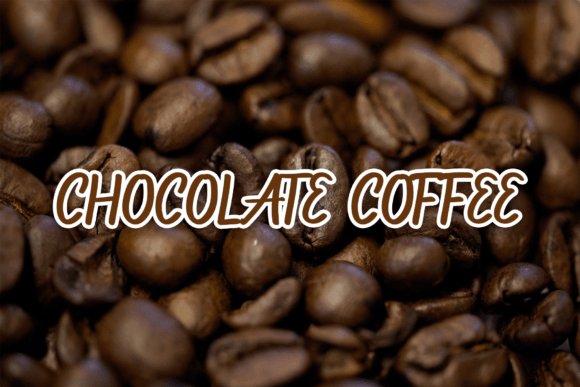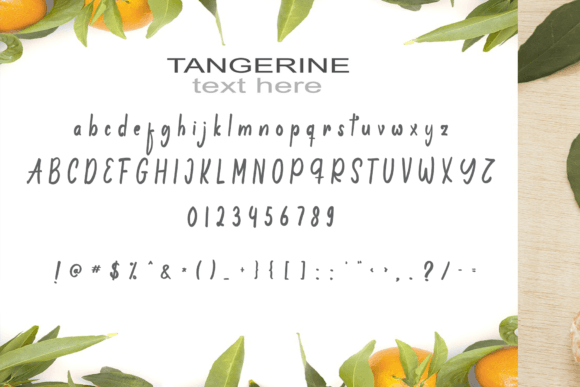
Discover the Charm of Anting Font: Elevate Your Designs with a Cool, Simple, and Playful Handwritten Style
In the world of typography, fonts play a crucial role in bringing designs to life. Among the numerous fonts available, Anting Font stands out for its unique blend of coolness, simplicity, and playfulness. This handwritten font is incredibly versatile, making it an excellent addition to a wide range of design projects. In this article, we’ll explore the features and benefits of Anting Font, and how it can elevate your creative ideas to new heights.
What is Anting Font?
Anting Font is a modern, handwritten typeface that exudes a sense of casual elegance. Its cool and simple design makes it perfect for designers and crafters looking for a font that can add a touch of personality to their work. The font’s playful nature allows it to connect with audiences of all ages, making it an excellent choice for projects that require a friendly and approachable tone.
Key Features of Anting Font
- Versatility: Anting Font is incredibly versatile, making it suitable for a wide range of design projects, from digital media to print materials.
- Playful yet Elegant: The font’s playful nature is balanced by its elegant design, making it perfect for projects that require a touch of sophistication.
- Easy to Read: Anting Font is designed to be easy to read, even at small sizes, making it ideal for body text and captions.
- Highly Legible: The font’s clear and simple design ensures that it remains legible, even in complex layouts.
Benefits of Using Anting Font
So, why should you choose Anting Font for your design projects? Here are just a few benefits of using this amazing font:
- Adds Personality: Anting Font adds a touch of personality to your designs, setting them apart from more generic fonts.
- Enhances Creativity: The font’s playful nature can help stimulate your creativity, leading to more innovative and engaging designs.
- Perfect for Branding: Anting Font is ideal for branding projects, as it can help create a unique and memorable visual identity.
- Wide Range of Applications: The font’s versatility makes it suitable for a wide range of applications, from logos and icons to posters and social media graphics.
How to Use Anting Font in Your Designs
Using Anting Font in your designs is easy. Here are a few tips to get you started:
- Pair it with Other Fonts: Anting Font pairs well with other fonts, making it easy to create visually appealing combinations.
- Experiment with Colors: The font’s simple design makes it easy to experiment with different colors and textures.
- Use it for Headings and Body Text: Anting Font is suitable for both headings and body text, making it a great choice for a wide range of design projects.
In conclusion, Anting Font is a cool, simple, and playful handwritten font that can elevate your designs to new heights. Its versatility, elegance, and playfulness make it an excellent choice for designers and crafters looking for a font that can add a touch of personality to their work. With its wide range of applications and ease of use, Anting Font is sure to become a favorite in your design toolkit. So why wait? Add Anting Font to your favorite creative ideas and watch them come alive!
Whether you’re a seasoned designer or just starting out, Anting Font is a great addition to your typography collection. Its unique blend of style and functionality makes it an excellent choice for projects that require a touch of sophistication and playfulness. So go ahead, give Anting Font a try, and experience the difference it can make in your designs.